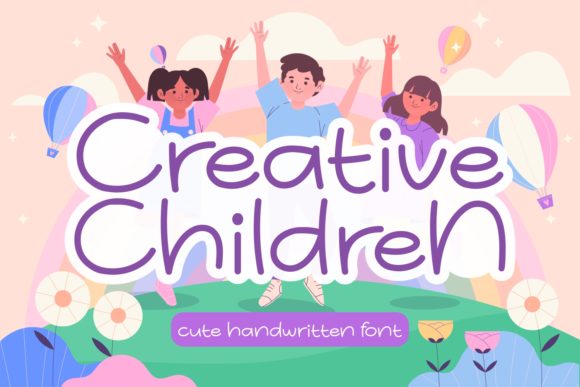
Prepare your design projects for a delightful transformation with Creative Children Font, a symphony of playful strokes and charming characters, designed to sprinkle joy into your creative endeavors. This captivating script font, meticulously crafted by Keithzo (7NTypes), is a true masterpiece, earning its place among the Best Fonts for Kids in 2018.
Creative Children Font is not just a font; it's an invitation to unleash your imagination and explore the whimsical world of creativity. Its carefree attitude and playful edge add a touch of lightheartedness to any design, making it perfect for logos, cards, social media posts, and more.
Imagine the smiles that will bloom when your designs come to life with Creative Children Font. Its quirky yet casual style effortlessly captures the essence of childhood, making it an ideal choice for projects targeting kids. This font has the power to transform ordinary words into extraordinary expressions, each letter a celebration of imagination and fun.
With Creative Children Font, you can create designs that speak directly to the hearts of children. Its friendly and approachable nature builds an instant connection, inviting young minds to engage with your content. Whether it's a playful logo, an enchanting invitation, or an interactive social media post, Creative Children Font will add a touch of magic that captivates and inspires.
So, embark on this creative journey with Creative Children Font, and discover the limitless possibilities it holds. Let your designs radiate joy, spark curiosity, and ignite the imagination of children everywhere. Step into a world where creativity knows no bounds and embrace the delightful adventure that awaits you with Creative Children Font.